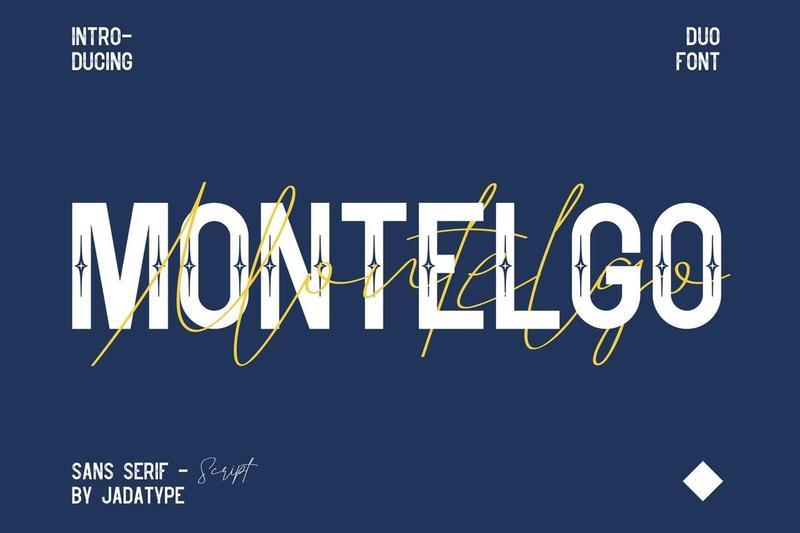
Montelgo – Script Meets Sans Font PAUPRKE
Montelgo is a font duo that combines a clean Sans Serif with an elegant Script style, creating a versatile typography pair for both modern and classic designs. It is ideal for branding, logos, packaging, social media graphics, invitations, advertising, merchandise, and creative projects that require a balanced combination of structure and personality. The family includes multilingual support, punctuation, numbers, and stylistic variations for professional typography work.
Standard uppercase and lowercase letters
Numbers and basic punctuation
Sans Serif and Script font styles
Several accented characters for multilingual support
Three styles: Regular, Italic & Script